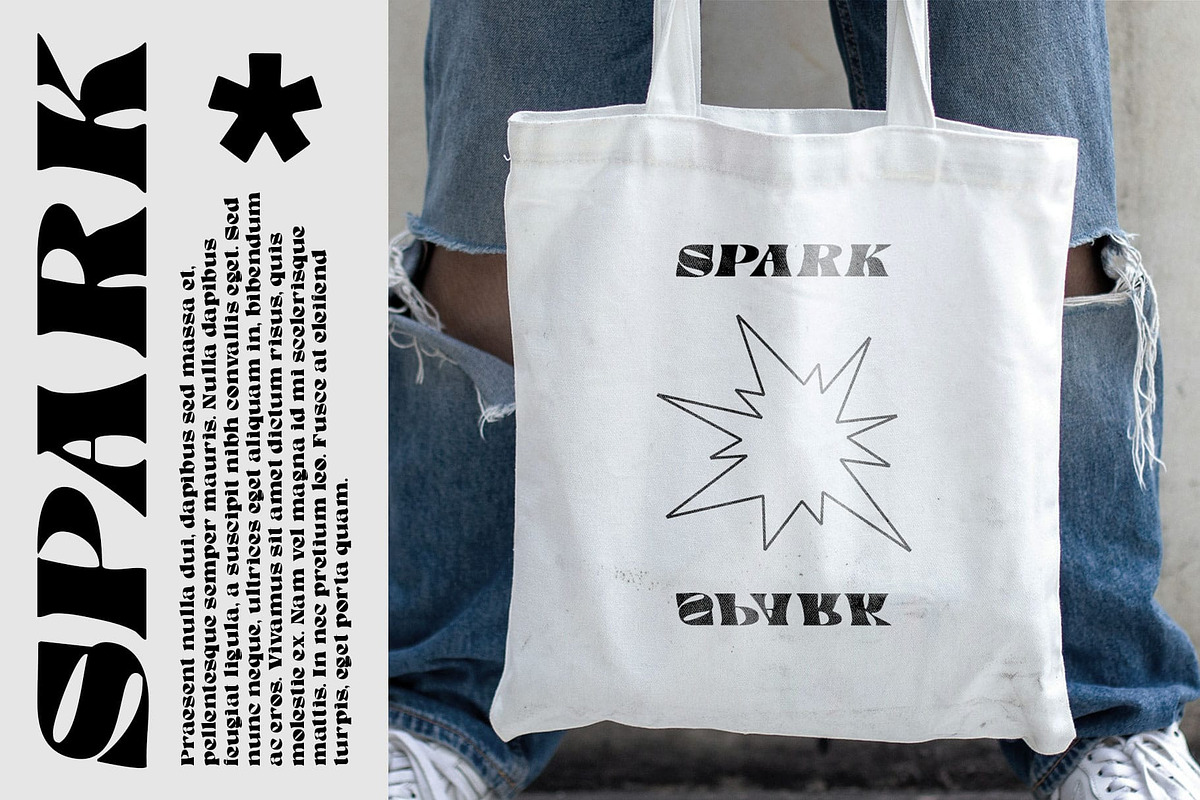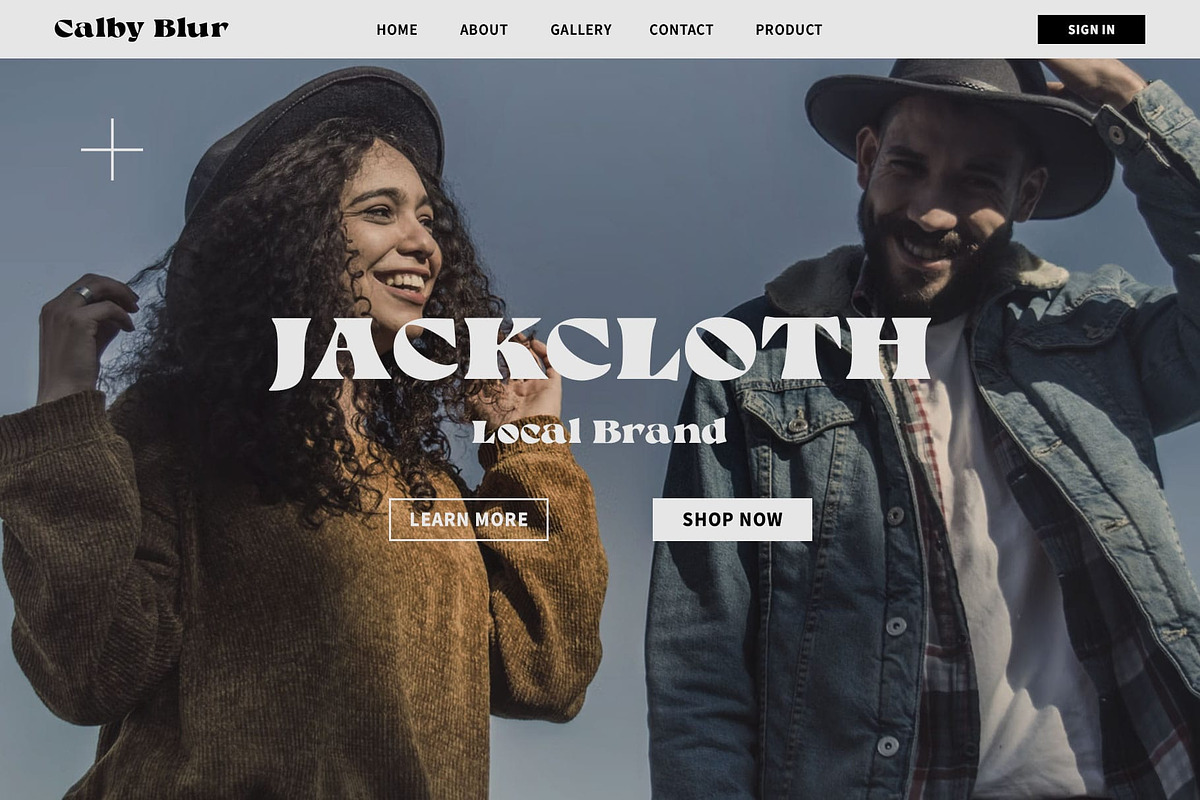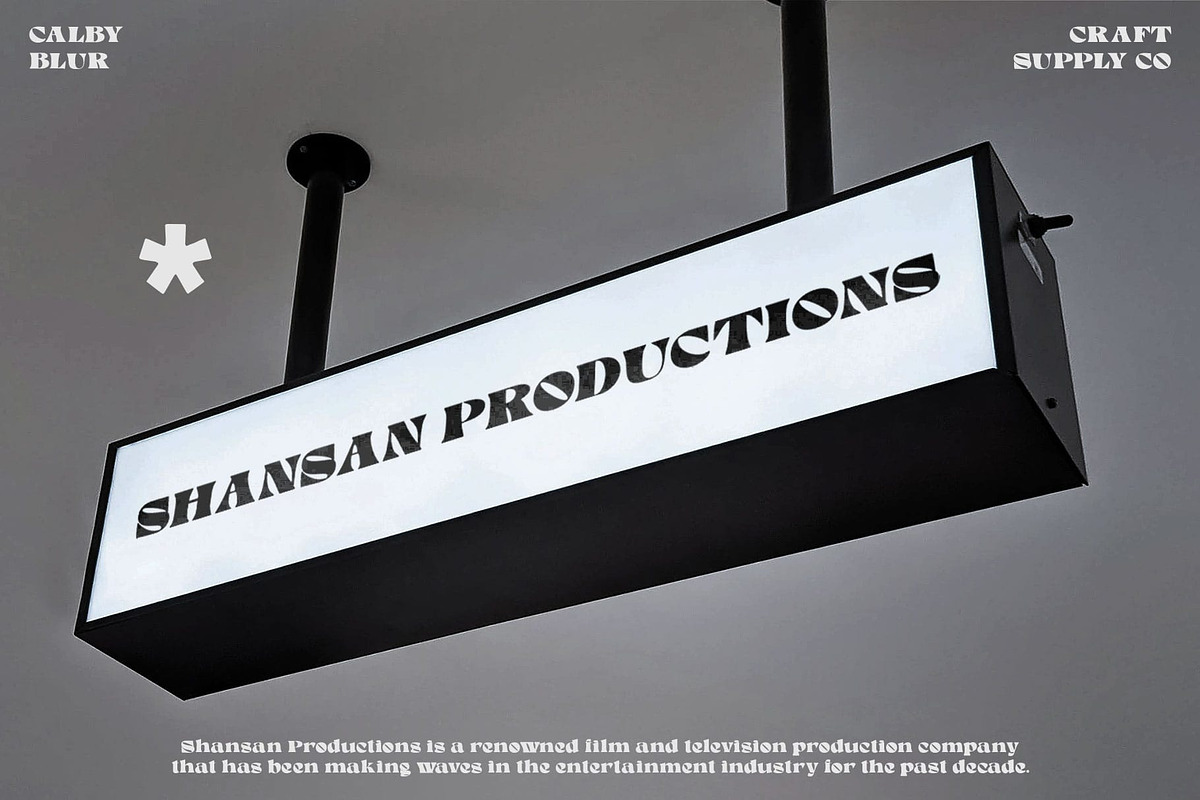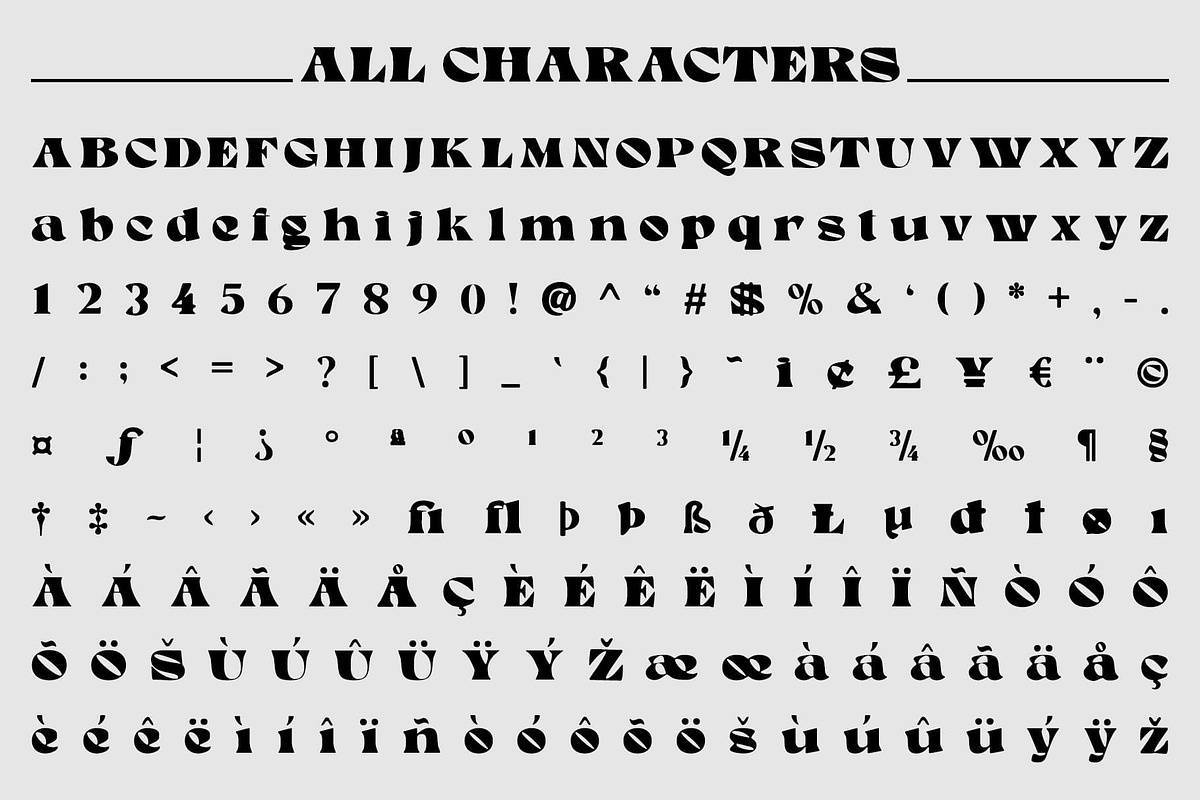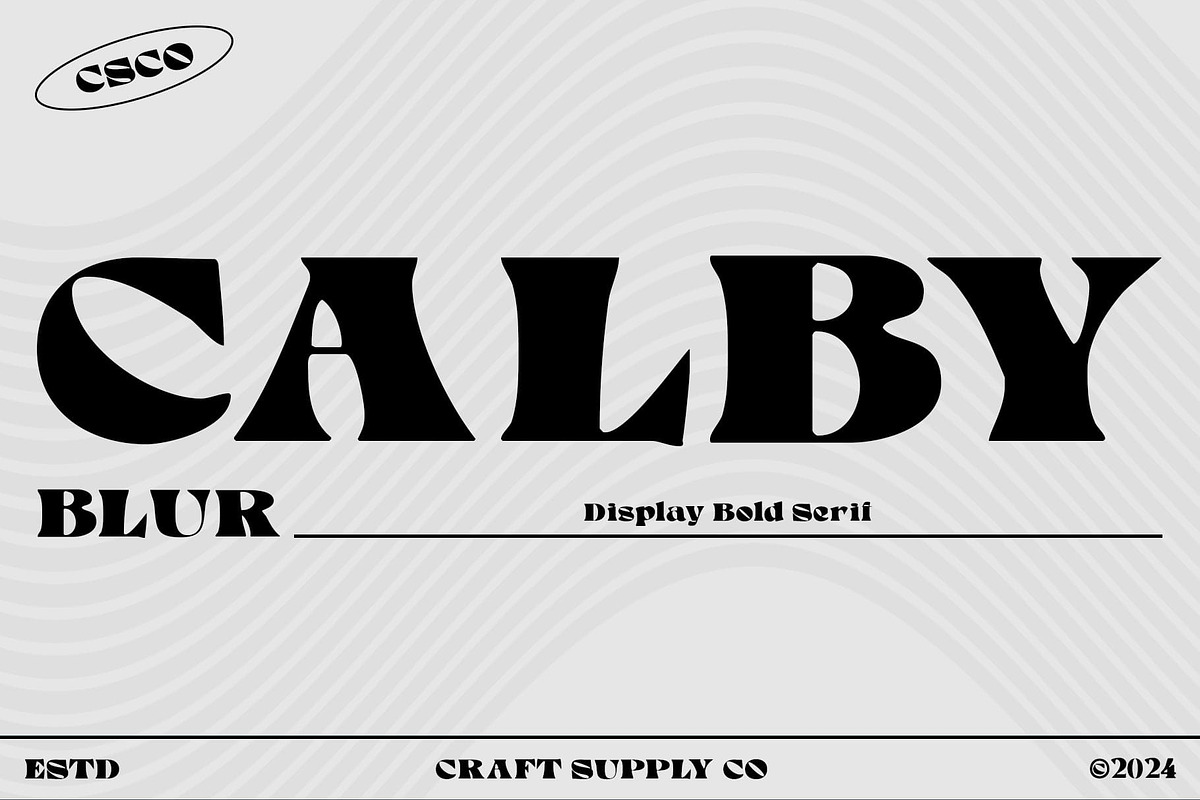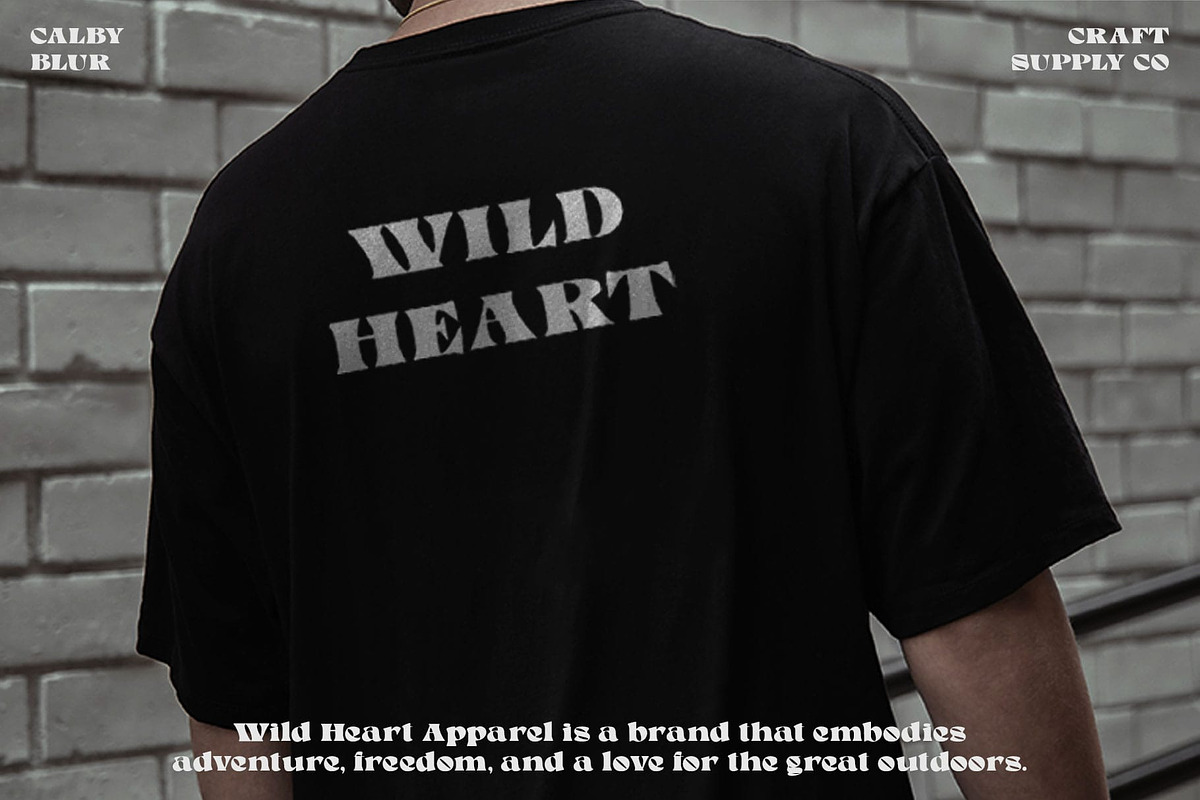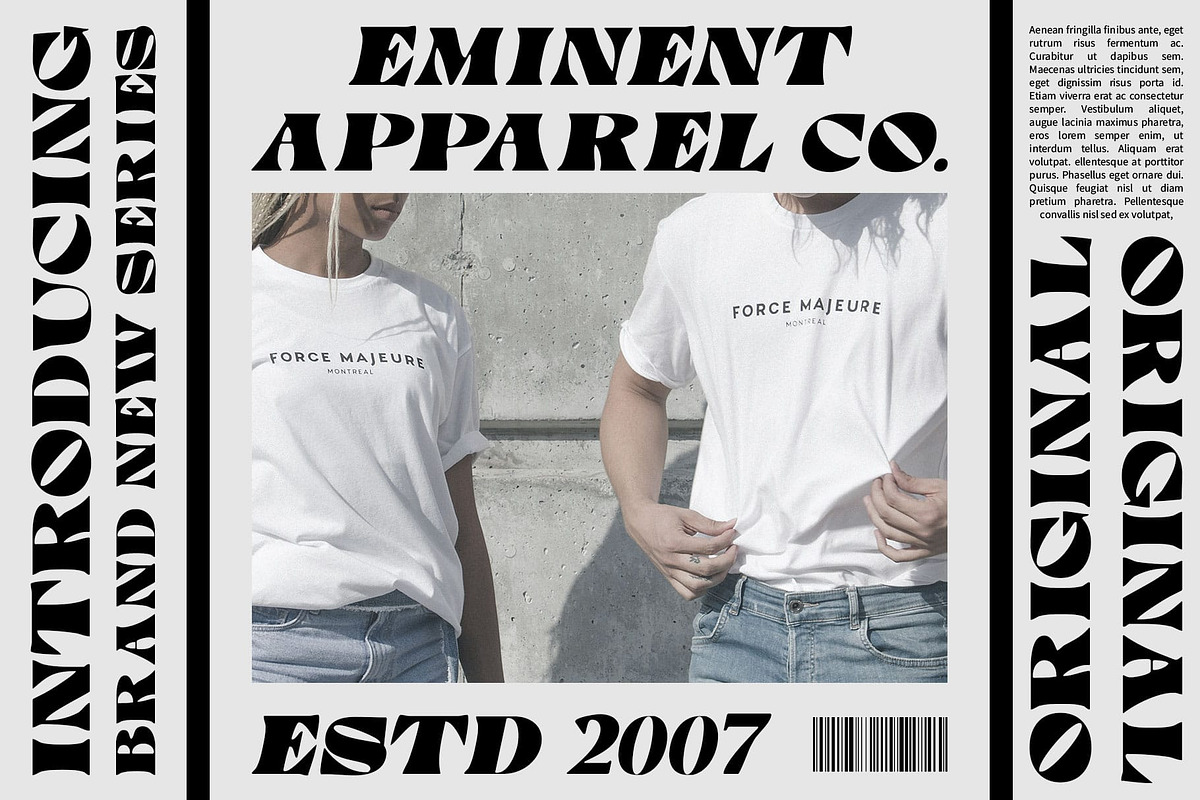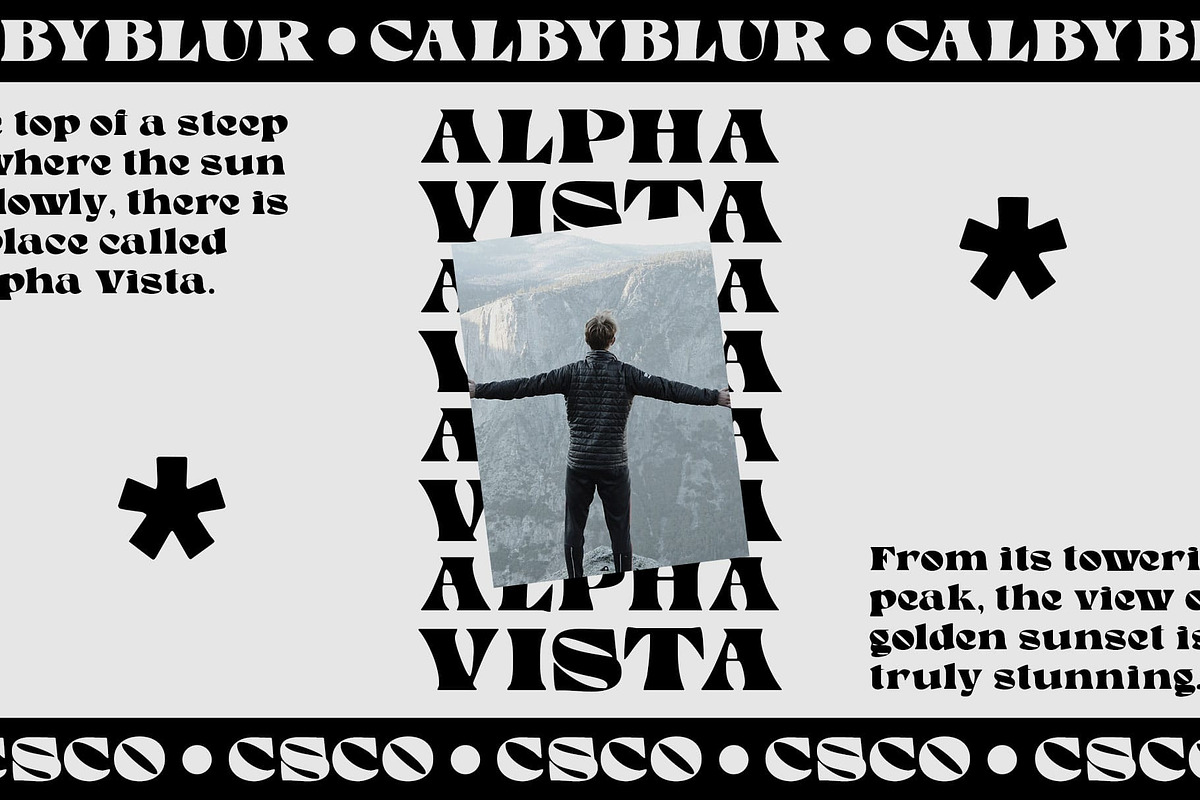
Calby Blur
Calby Blur: Intriguing and Dynamic
Bold Serif with Blur Effect
Calby Blur is a bold serif font that features a unique blur effect, creating an intriguing and dynamic look in various designs. Its thick, clear letter characters combined with a soft blur effect add an interesting visual dimension to any project.
Distinctive and Appealing
Designed to highlight uniqueness, Calby Blur provides a distinctive and appealing touch to your designs. Whether you’re working on posters, headlines, or branding materials, this font stands out with its eye-catching style and innovative blur effect.
Ideal for Creative Projects
Calby Blur is perfect for creative projects that aim to make a bold statement. The blend of bold serif characters and a subtle blur effect makes it suitable for designs that want to capture attention and convey a sense of originality and creativity.
Enhance Visual Interest
With Calby Blur, you can enhance the visual interest of your designs. The blur effect adds depth and movement, making your text appear dynamic and engaging, perfect for modern and edgy design concepts.
Conclusion
In conclusion, Calby Blur is a bold serif font with a unique blur effect, ideal for designs seeking to emphasize their uniqueness with a distinctive and appealing touch. Its thick and clear letter characters, combined with a soft blur effect, create an intriguing and dynamic look that enhances any creative project.